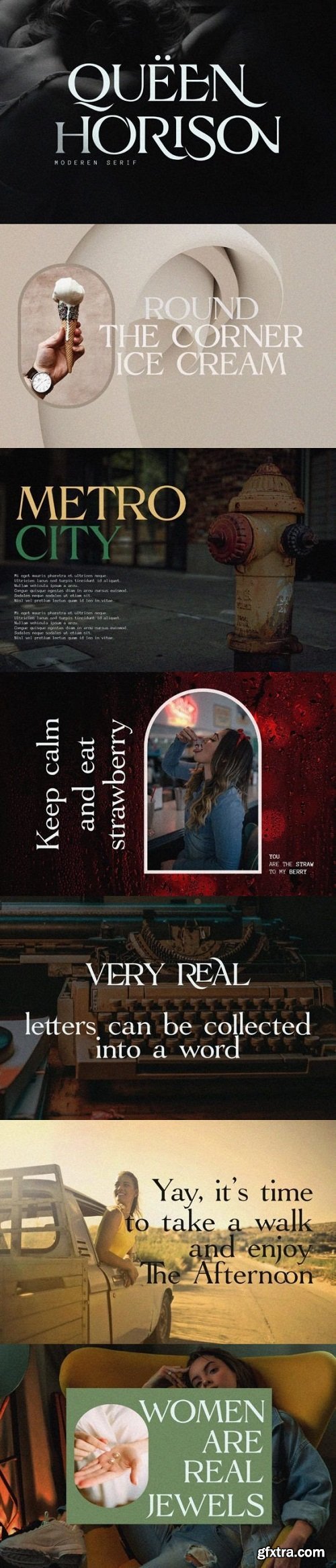
Horison is a modern and elegant serif font. It has beautiful and well-balanced characters and as a result, it matches a wide pool of designs. Add it to your most creative ideas and notice how it makes them come alive!